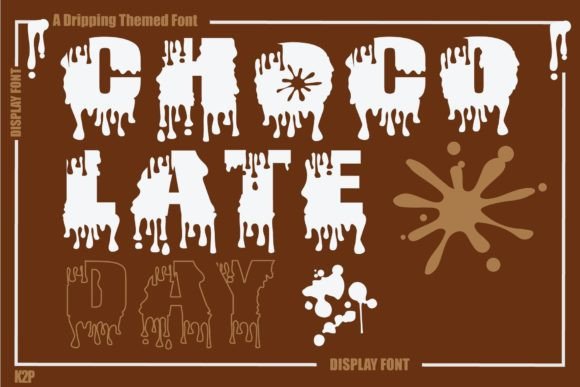
Welcome to the world of Chocolate Day Font, a thick-lettered decorative font that will add a personal and realistic feel to your designs. This font is perfect for various quotes or cooking material, bringing a unique and authentic touch to your projects.
Indulge in the delightful charm of Chocolate Day Font, a font that embodies the warmth and joy of Easter. Its thick, inviting letterforms evoke a sense of nostalgia, creating designs that resonate with a timeless appeal. Whether you're crafting heartfelt quotes, designing eye-catching posters, or creating packaging for your culinary creations, Chocolate Day Font is your perfect companion.
With its thick and inviting letterforms, Chocolate Day Font invites you to unleash your creativity and craft designs that captivate and engage. Its unique style adds depth and personality to any project, making it a must-have for designers, crafters, and creative professionals alike.
Step into the world of Chocolate Day Font today and elevate your designs with its timeless charm and authentic feel. Its versatility and charm will make it a staple in your font collection, bringing a touch of delight and originality to every project you undertake.